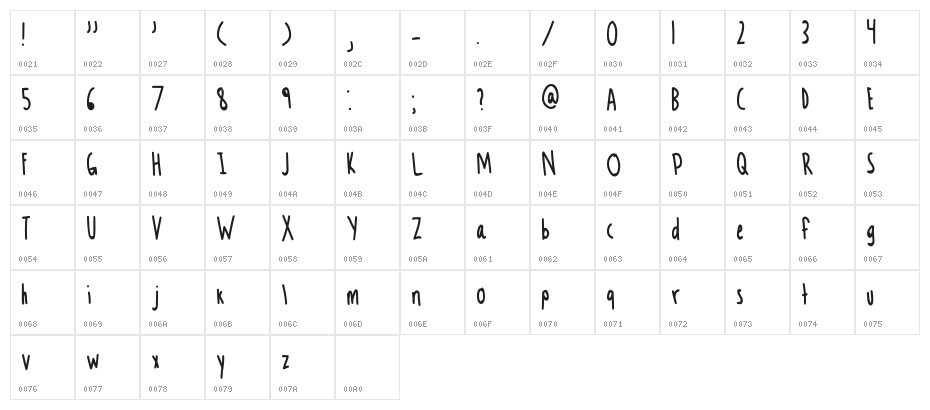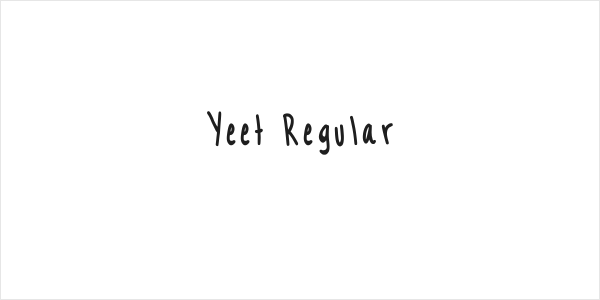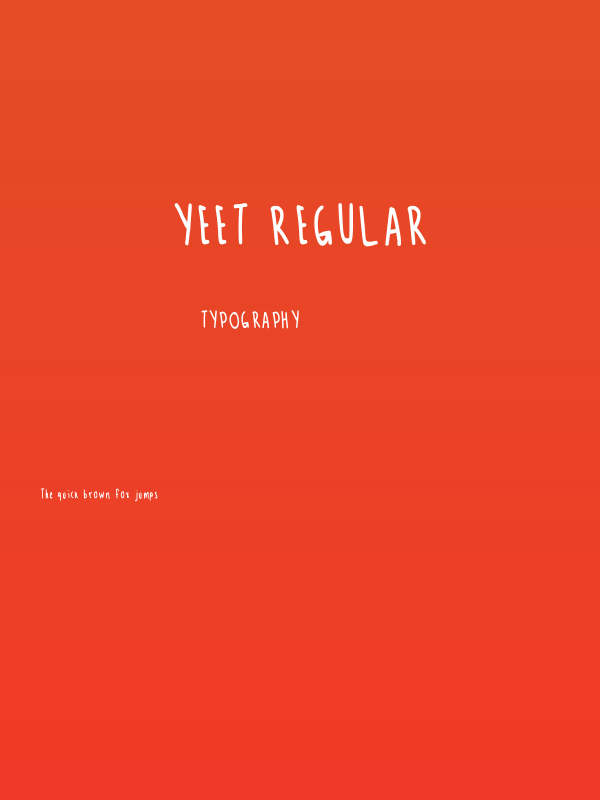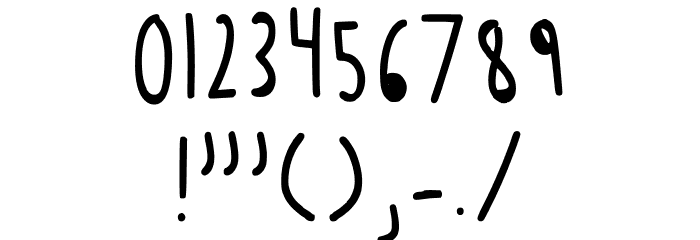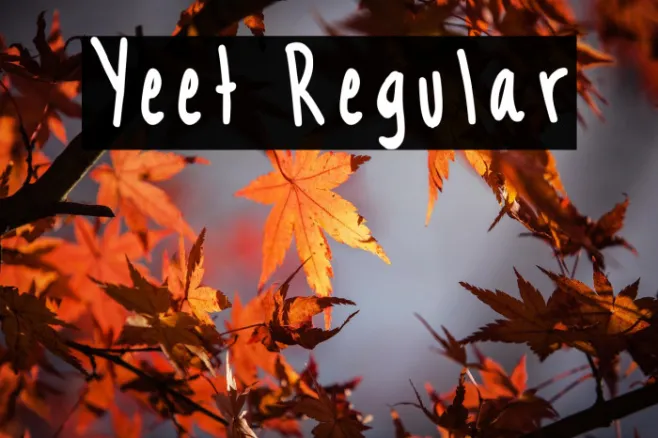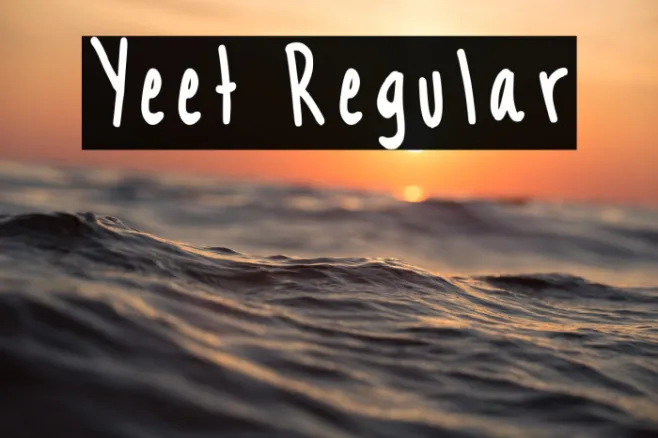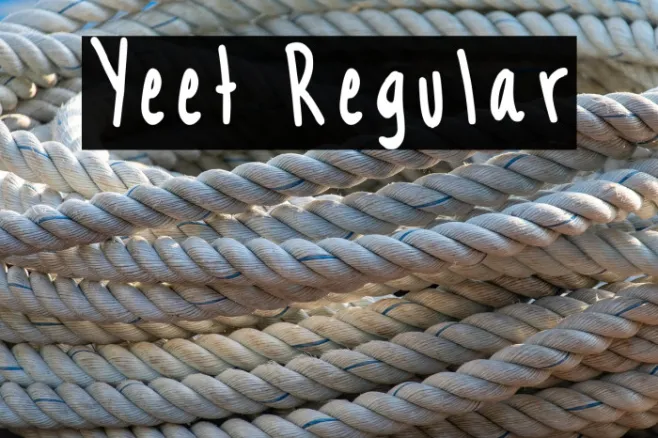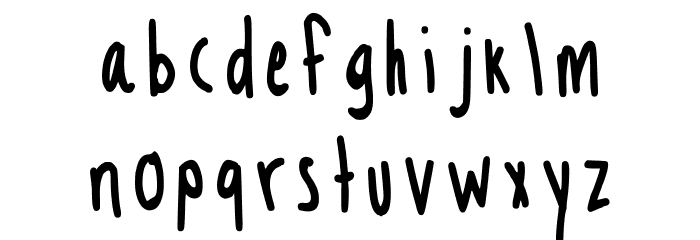
Yeet Regular Font
Yeet Regular Description
This font features a playful and casual handwritten style, characterized by its irregular and slightly uneven letterforms. The strokes are smooth and rounded, giving it a friendly and approachable appearance. The uppercase and lowercase letters maintain a consistent style, with a slight tilt that adds to its informal charm. The numerals and special characters follow the same whimsical design, making it suitable for projects that require a personal touch. Its simplicity and readability make it versatile for various creative applications.